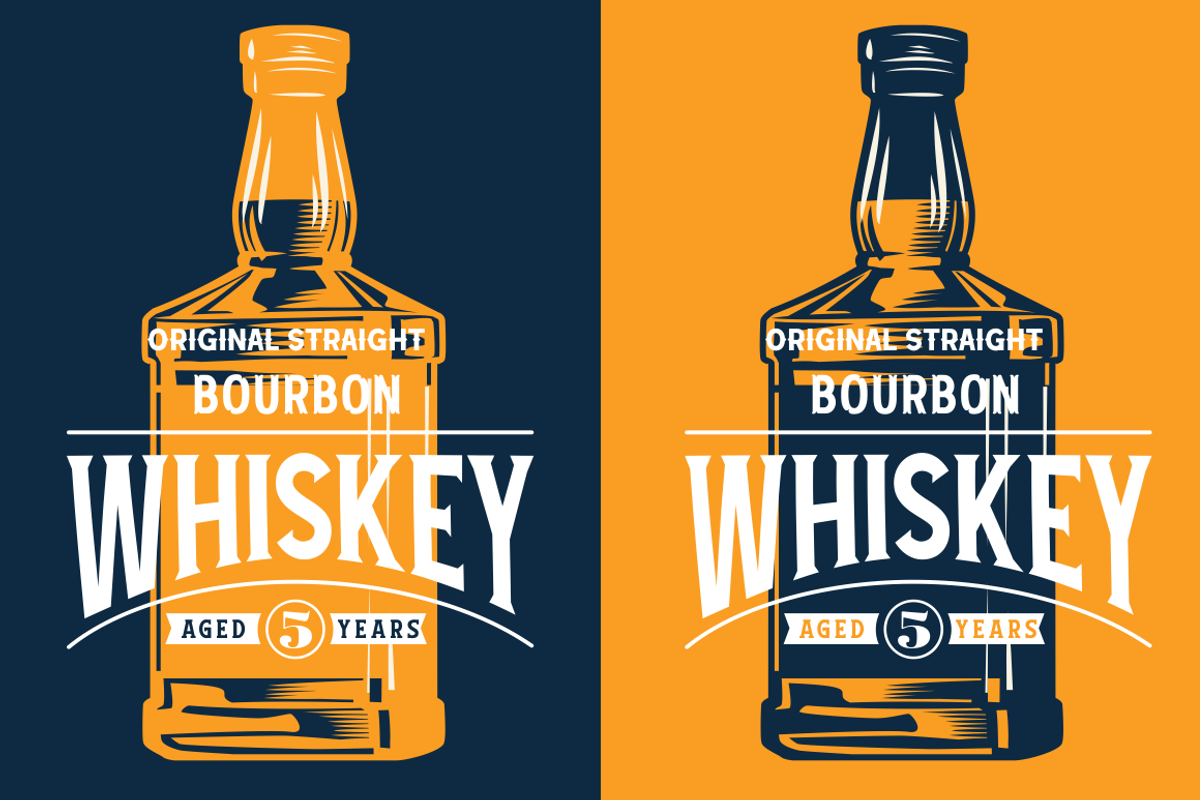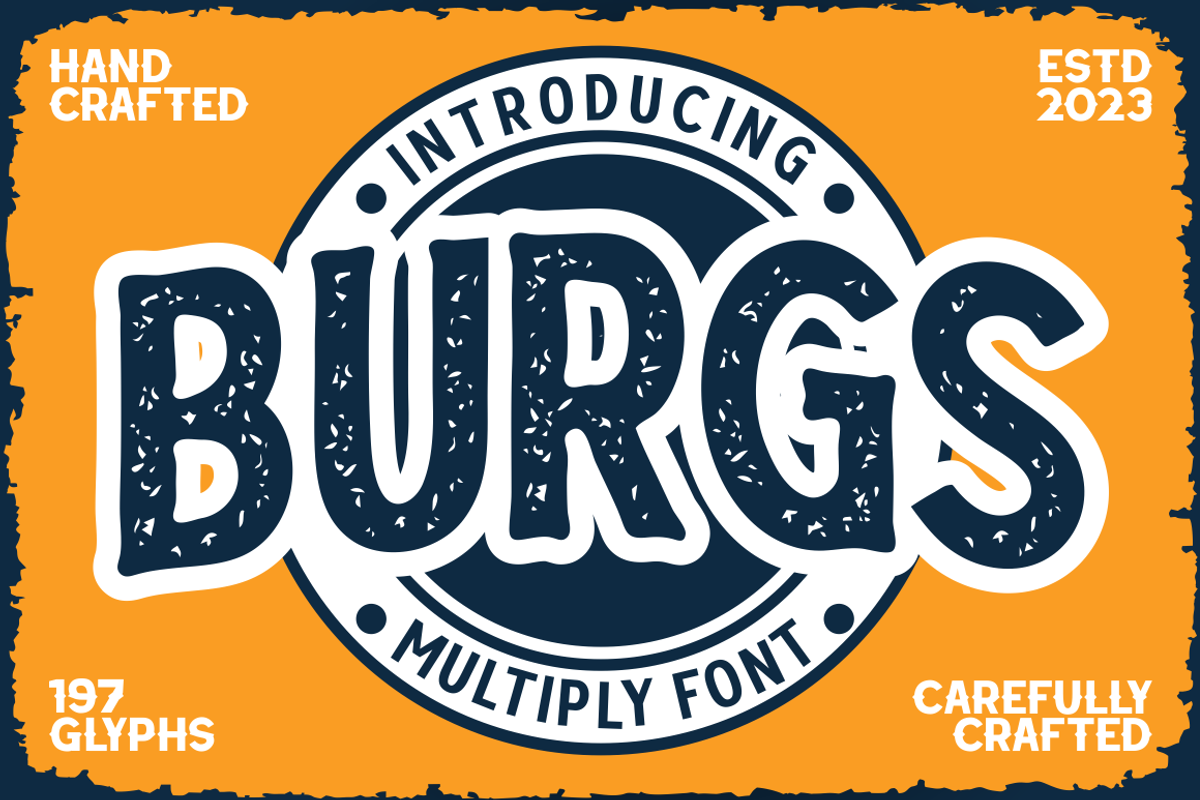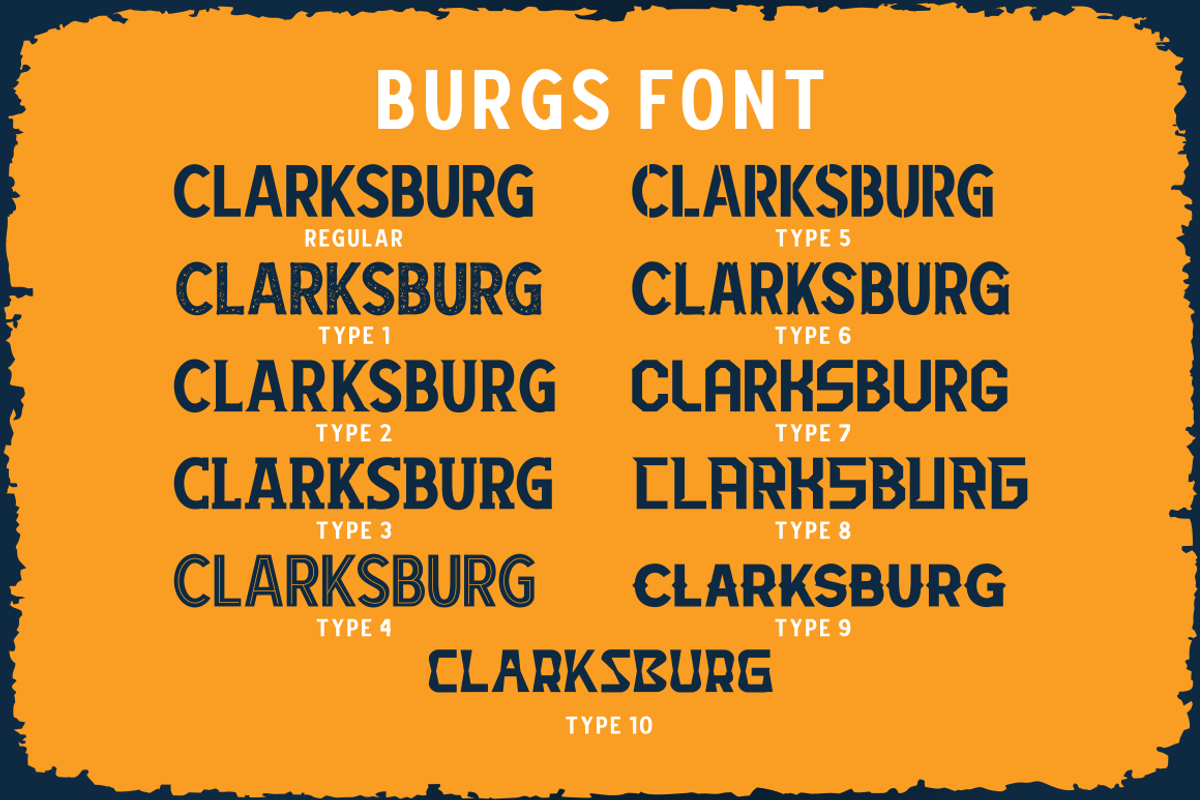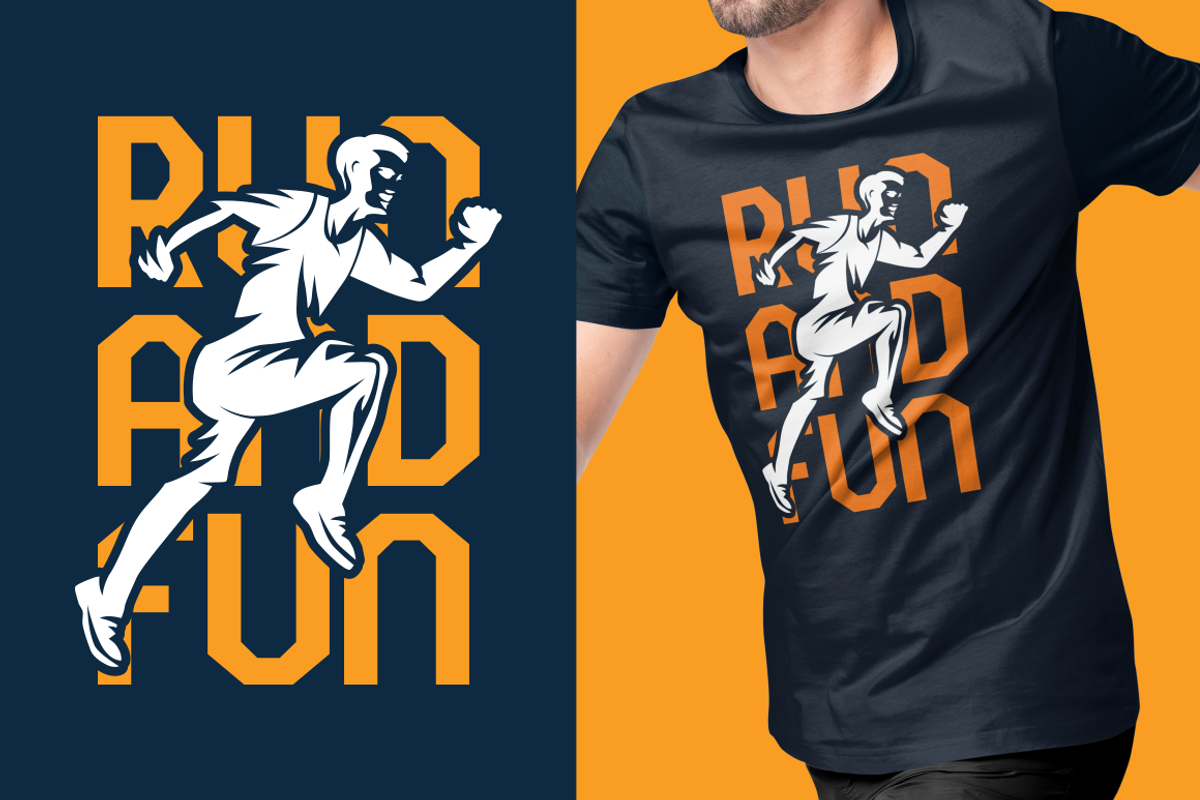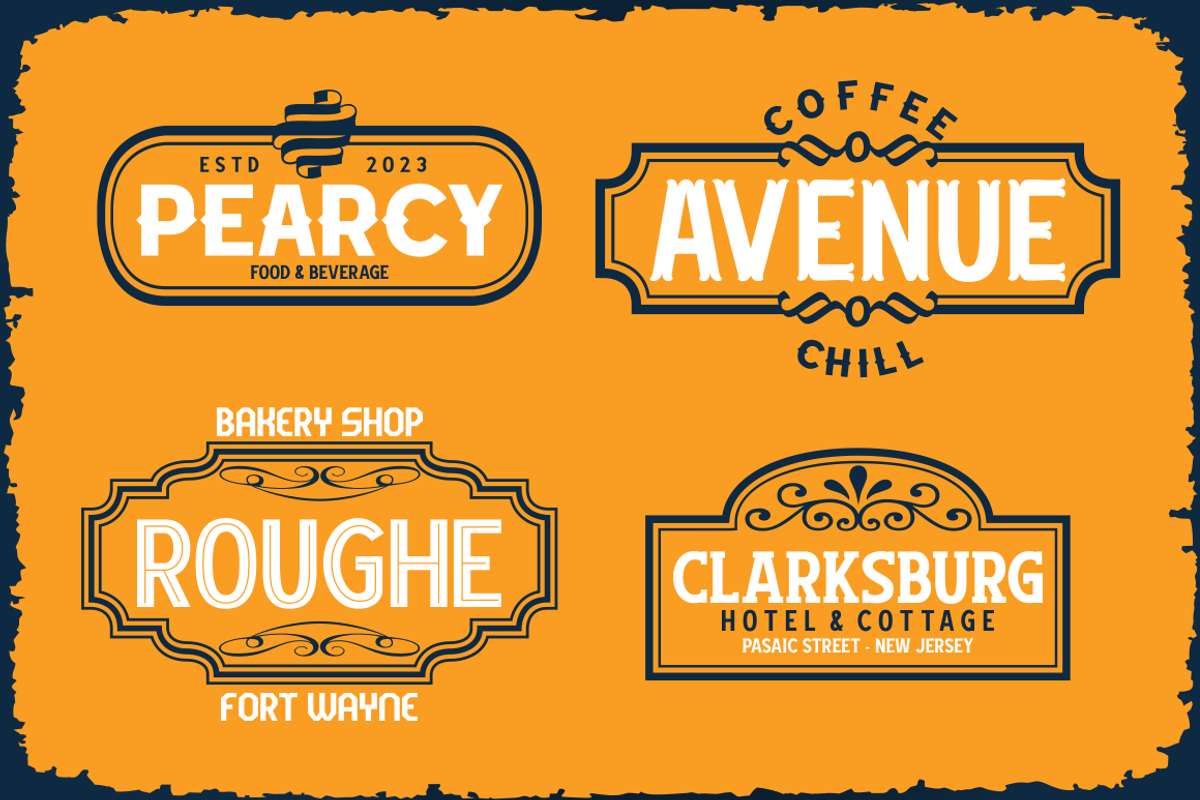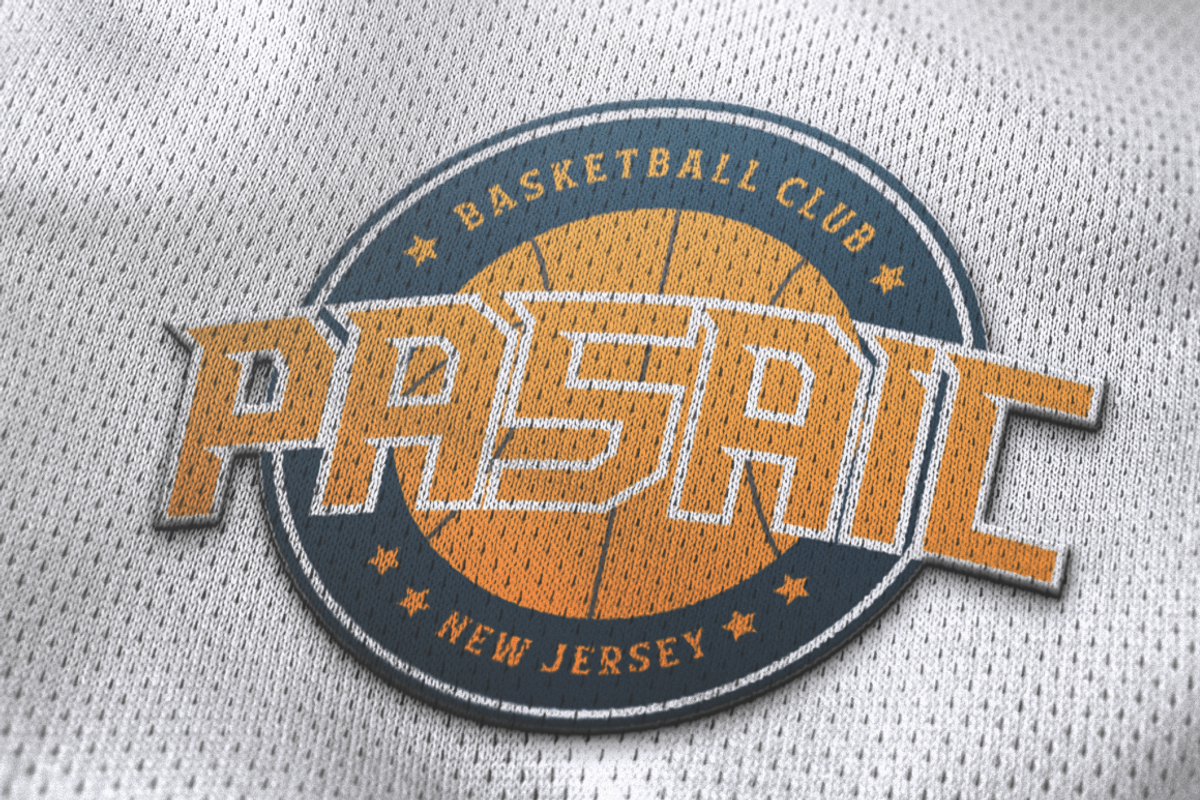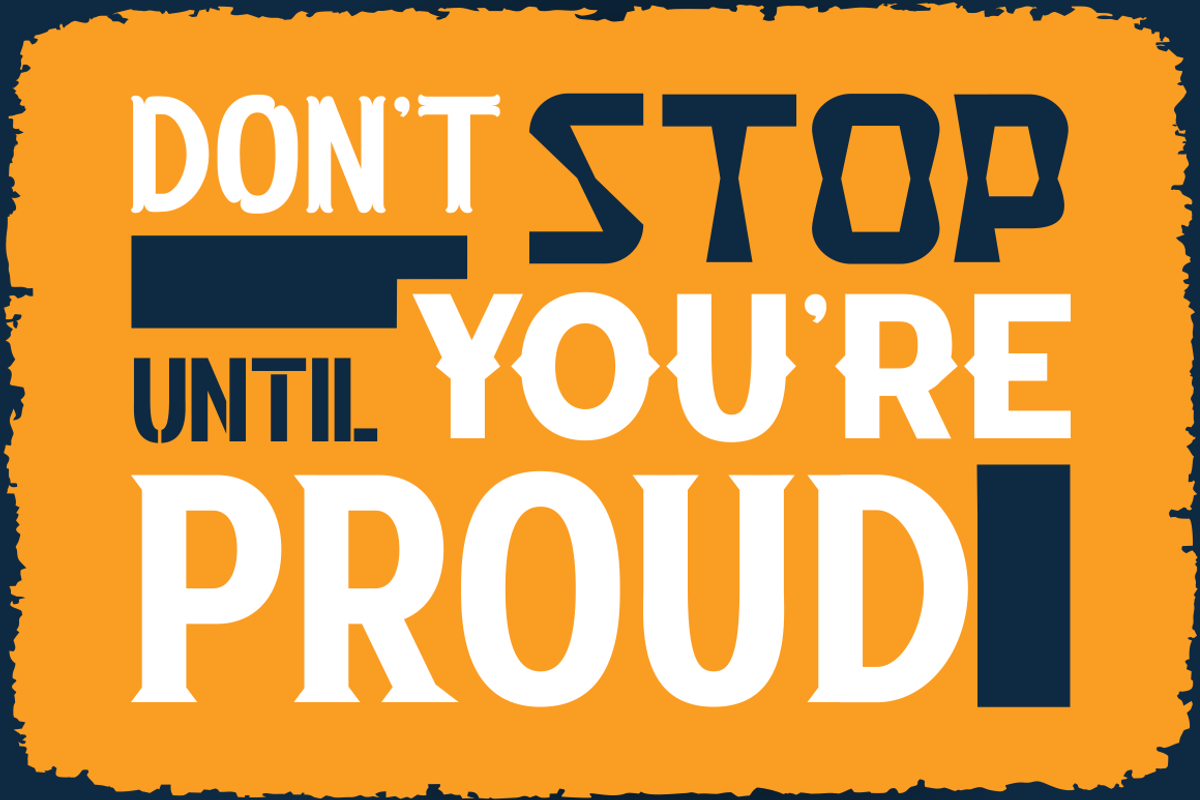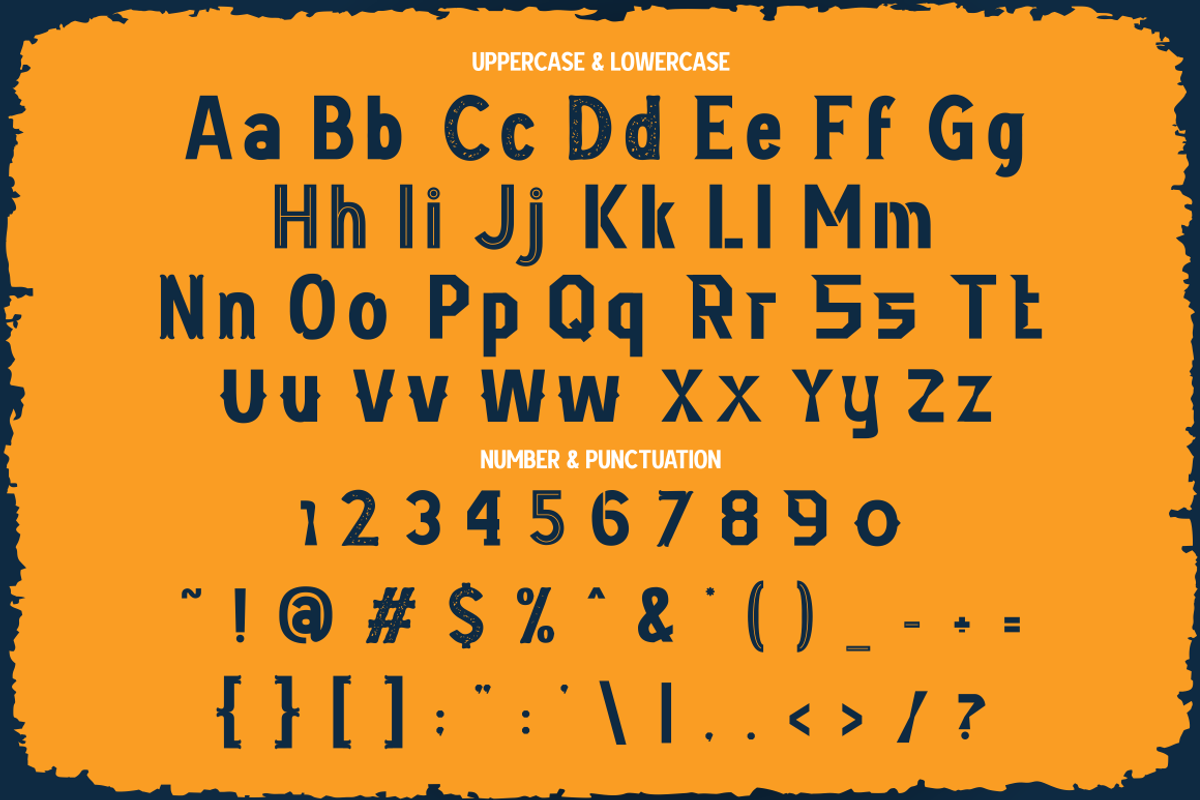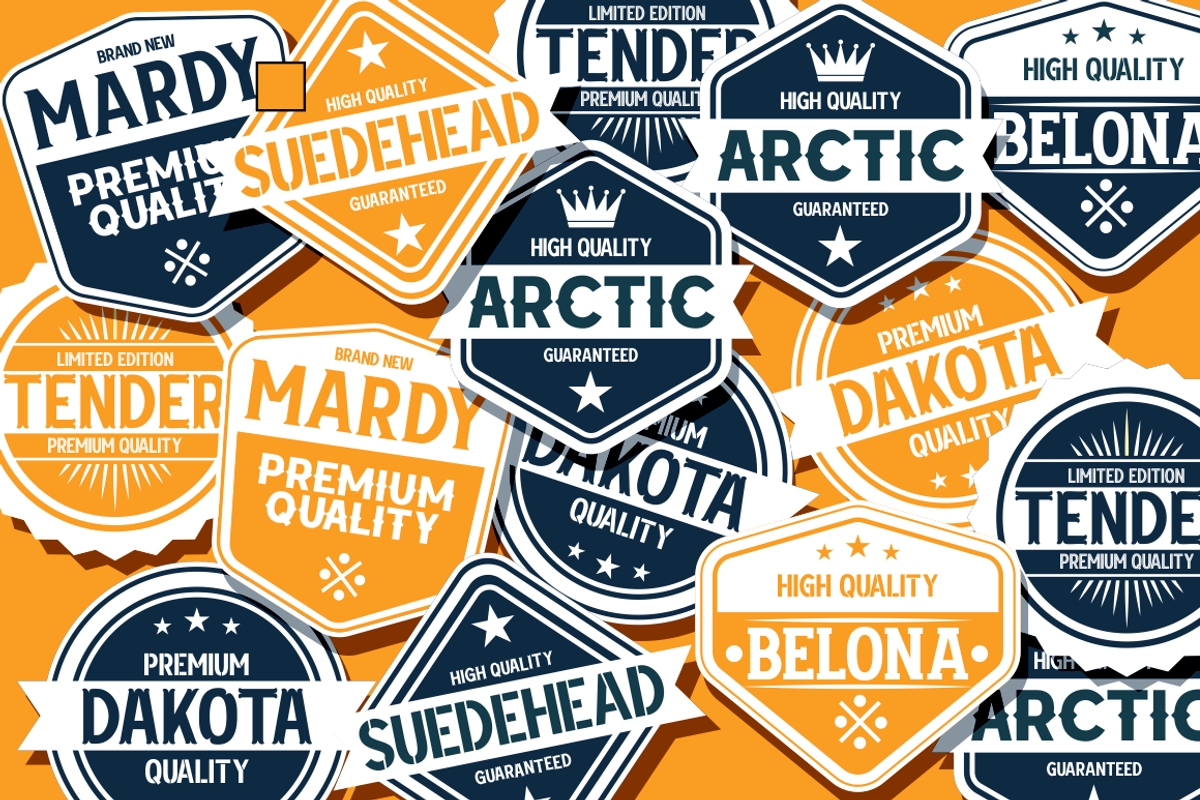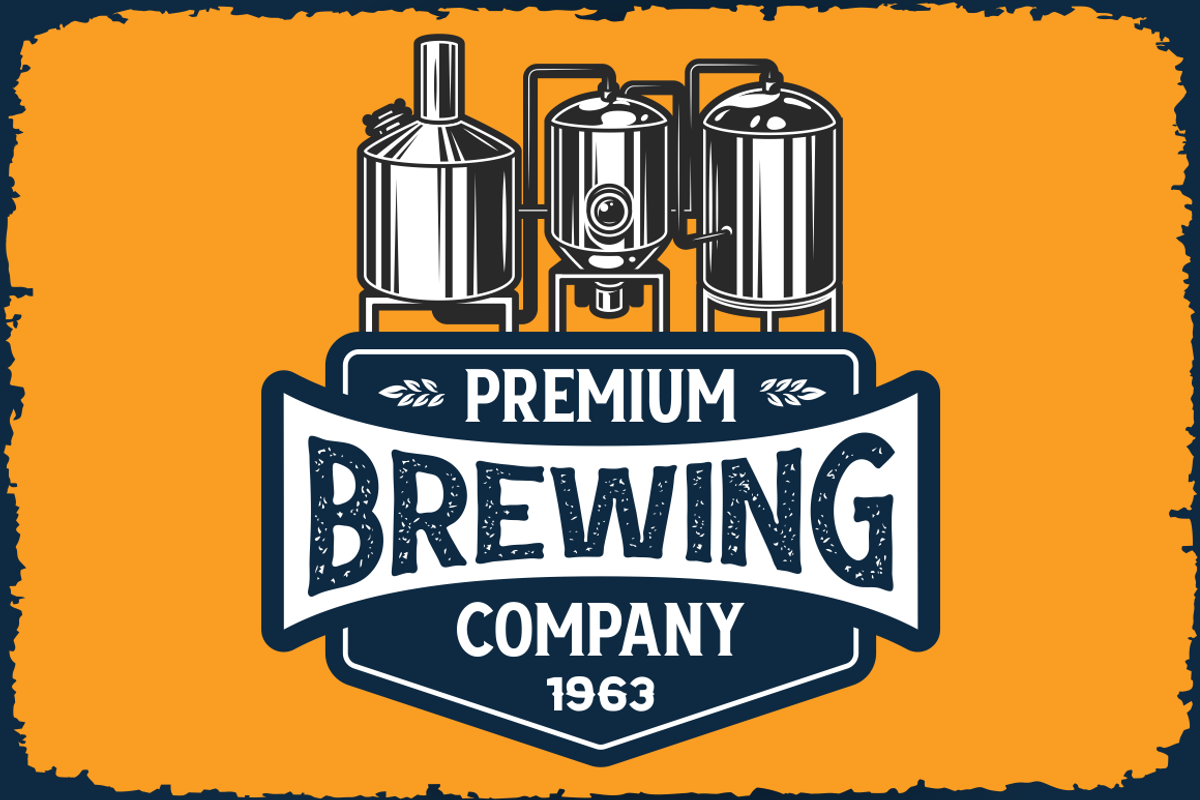
Burgs - Multiply Font
Burgs - Multistyle Font is a versatile typeface that starts as a modern sans-serif font and expands into a diverse collection of eight alternative font styles. These variations include slab, stencil, display, sport, classic, serif, and decorative, offering a wide range of design options. Each font style can be combined with others or used individually, making it adaptable for a multitude of design purposes. Whether it's for logos, posters, packaging, branding, business names, stickers, headlines, or any creative endeavor, Burgs provides a wealth of options for your projects.